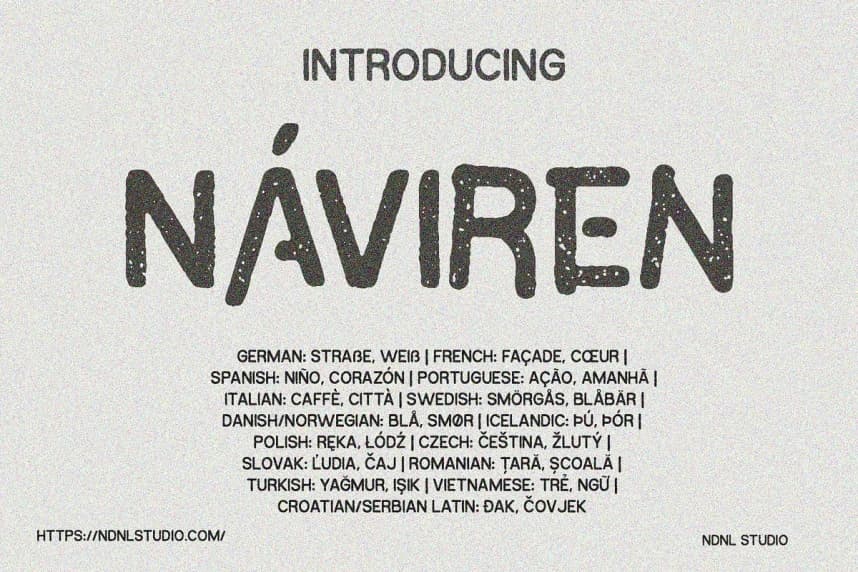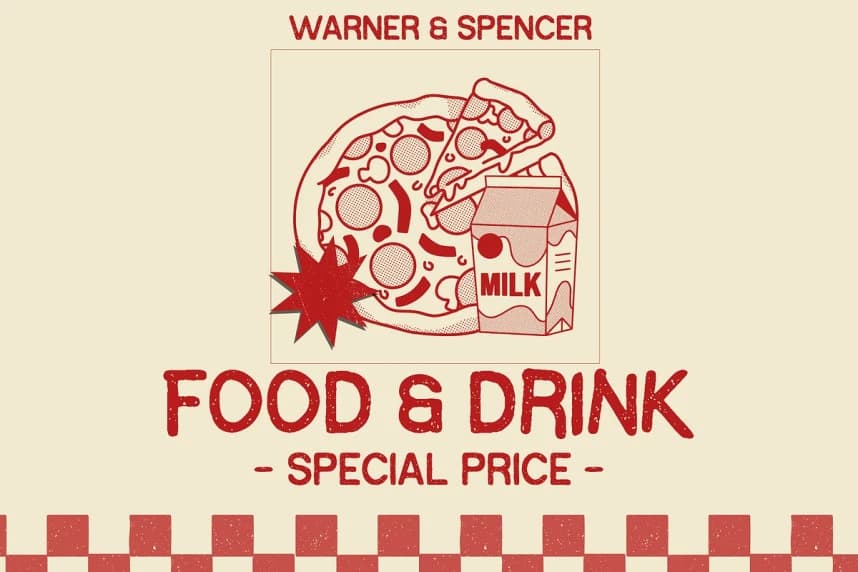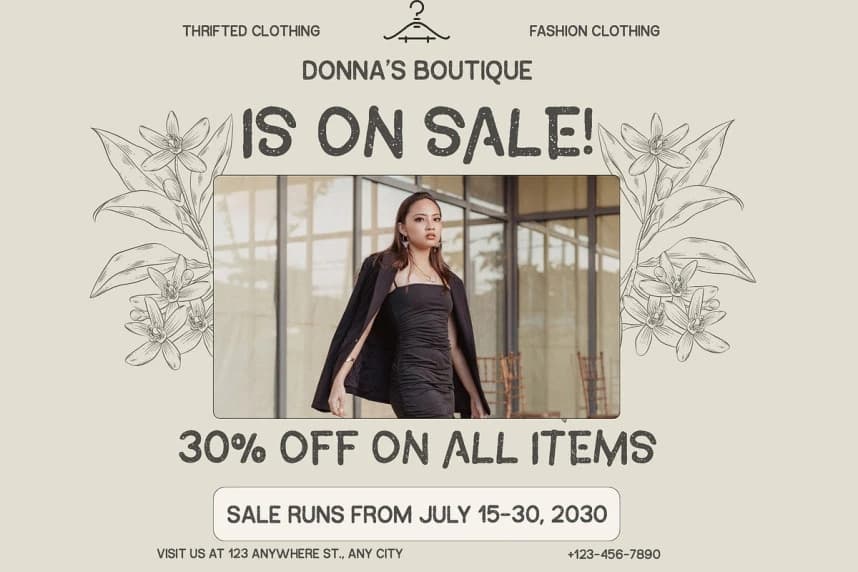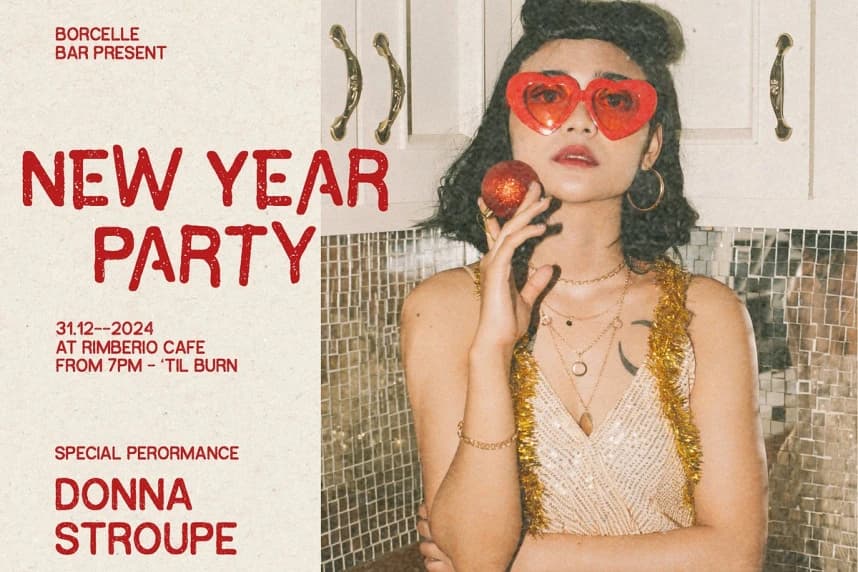
Naviren Display Font
Naviren Display Font is a handcrafted display typeface with a rustic, playful, and expressive personality. Featuring organic letterforms and a unique grainy texture, Naviren delivers a warm handmade feel while remaining bold and eye-catching.